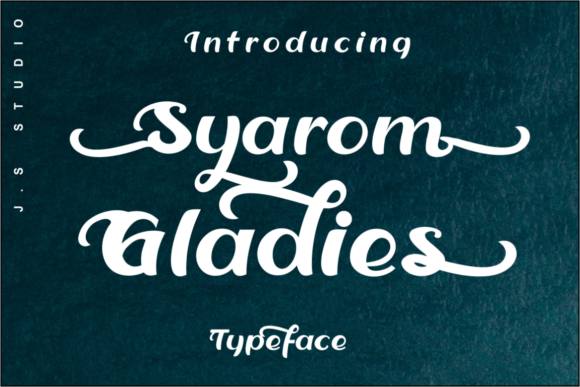
Indulge in the allure of Syarom Gladies, a captivating handmade display font crafted to ignite your creativity. With its intricate alternative style, Syarom Gladies possesses a mesmerizing presence that dances across your screen.
Step into a world of boundless possibilities, where Syarom Gladies enhances your logos with a touch of unparalleled elegance. Elevate wedding invitations to ethereal realms, transforming them into cherished keepsakes that whisper of love and joy. Dive into the depths of magazines, where Syarom Gladies weaves a tapestry of visual enchantment, capturing the essence of your stories. Embrace the allure of album covers adorned with Syarom Gladies, each stroke a captivating dance that enchants the senses.
But there's more to Syarom Gladies than meets the eye. It's a font that speaks to your soul, evoking emotions that linger long after the page is turned. Its graceful curves and whimsical flourishes ignite a spark of inspiration, encouraging you to unleash your inner artist.
Let Syarom Gladies be the transformative force that elevates your designs. Its enchanting versatility knows no bounds, empowering you to create masterpieces that captivate and inspire. Immerse yourself in the world of Syarom Gladies, where imagination knows no limits.